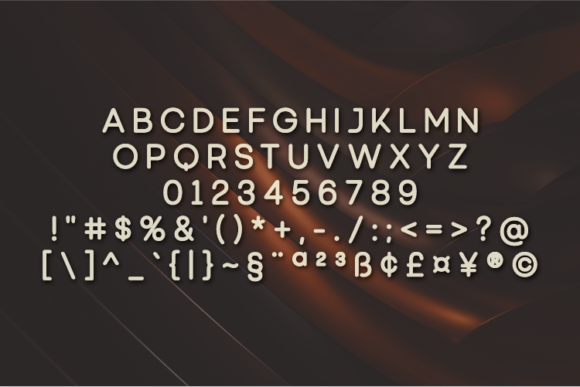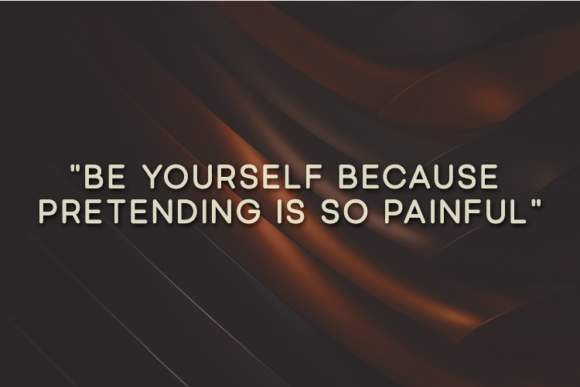
Brizlish Font: Elevate Your Designs with a Minimal and Neat Sans Serif
In the world of typography, a font can make or break a design. A well-chosen font can elevate your creative project, making it stand out from the crowd. If you’re a designer or crafter looking for a versatile and modern sans serif font, look no further than Brizlish. In this article, we’ll explore the features and benefits of Brizlish, and how it can add a touch of sophistication to your designs.
What is Brizlish Font?
Brizlish is a minimal and neat sans serif font, designed to be effortlessly paired with a wide range of projects. Its clean lines, simple shapes, and uncluttered aesthetic make it an excellent choice for designers seeking a modern and elegant look. Whether you’re working on a logo, branding materials, website, or craft project, Brizlish is an excellent addition to your typography arsenal.
Key Features of Brizlish Font
- Minimalist Design: Brizlish boasts a sleek and minimalist design, making it perfect for designs that require a clean and uncluttered look.
- Sans Serif: The font’s sans serif design ensures that your text remains clear and legible, even at small font sizes.
- Versatility: Brizlish can be used in a wide range of projects, from logos and branding materials to websites, posters, and craft projects.
- Elegant Aesthetic: The font’s elegant design adds a touch of sophistication to any project, making it perfect for designs that require a professional look.
Benefits of Using Brizlish Font
So, why choose Brizlish for your design projects? Here are just a few benefits of using this versatile font:
- Easy to Read: Brizlish is designed to be highly legible, making it perfect for body text, headings, and titles.
- Customizable: The font’s simple design makes it easy to customize, allowing you to pair it with a wide range of colors, textures, and patterns.
- Time-Saving: With Brizlish, you can quickly create professional-looking designs without spending hours searching for the perfect font.
- Unique Look: Brizlish’s elegant design ensures that your projects stand out from the crowd, giving you a unique and distinctive look.
How to Use Brizlish Font in Your Designs
Using Brizlish in your designs is easy. Here are a few tips to get you started:
- Pair with Bold Colors: Brizlish looks great paired with bold, bright colors. Try combining it with a vibrant hue to add a pop of color to your design.
- Add Texture and Patterns: The font’s simple design makes it easy to pair with textures and patterns. Try adding a subtle texture or pattern to give your design depth and interest.
- Experiment with Font Sizes: Brizlish is highly legible, even at small font sizes. Experiment with different font sizes to create visual interest and hierarchy in your design.
In conclusion, Brizlish is a versatile and modern sans serif font that’s perfect for designers and crafters looking to elevate their creative projects. Its minimalist design, elegant aesthetic, and high legibility make it an excellent choice for a wide range of projects. Whether you’re working on a logo, website, or craft project, Brizlish is sure to add a touch of sophistication and professionalism. So why wait? Add Brizlish to your typography arsenal today and watch your designs stand out!